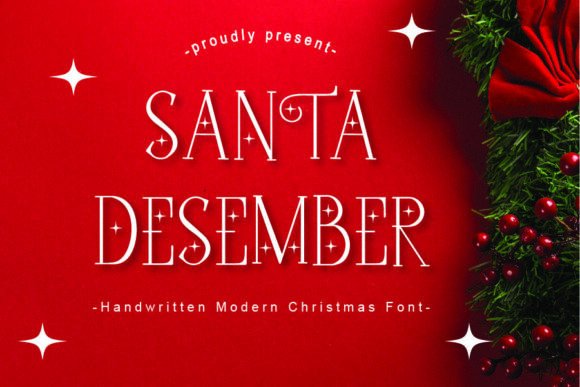
Santa Desember Font: The Ultimate Holiday Cheer for Your Designs
The holiday season is upon us, and with it comes the desire to infuse our designs with a dash of festive fun and playful charm. If you’re looking for the perfect typography to capture the essence of Christmas, look no further than the Santa Desember font. This whimsical typeface is the epitome of cheerful holiday joy and spirited youthfulness, guaranteed to bring your designs to life with its quirky and entertaining style.
The Magic of Santa Desember Font
Santa Desember font is more than just a typography; it’s an experience. Its unique and playful design instantly evokes the feeling of holiday merriment, making it the perfect addition to any Christmas-oriented project. Whether you’re designing a festive poster, a holiday card, or a Christmas-themed website, this font is sure to add a noticeable spark of fun and cheer.
What Makes Santa Desember Font So Special?
So, what sets Santa Desember font apart from other typographies? Here are a few reasons why this font is the ultimate holiday cheer for your designs:
- Whimsical Design: Santa Desember font boasts a unique and whimsical design that instantly captures the essence of the holiday season.
- Playful Charm: This font exudes playful charm, making it perfect for designs that require a dash of fun and humor.
- Cheerful Holiday Joy: Santa Desember font embodies cheerful holiday joy, guaranteed to put a smile on your audience’s faces.
- Spirited Youthfulness: This font’s spirited youthfulness makes it perfect for designs that require a fresh and energetic feel.
- Pair it with Other Fonts: Pair Santa Desember font with other complementary fonts to create a unique and visually appealing typography combination.
- Experiment with Colors: Experiment with different colors to find the perfect combination that matches your brand’s style and personality.
- Use it for Headings and Titles: Use Santa Desember font for headings and titles to add a touch of festive fun and playfulness to your designs.
Benefits of Using Santa Desember Font
Using Santa Desember font in your designs comes with a range of benefits, including:
- Increased Engagement: The playful and whimsical design of Santa Desember font is sure to capture your audience’s attention and increase engagement.
- Improved Brand Personality: This font’s unique and cheerful design can help to improve your brand’s personality and make it more relatable.
- Festive and Fun: Santa Desember font adds a touch of festive fun to your designs, making it perfect for holiday-themed projects.
In conclusion, Santa Desember font is the ultimate holiday cheer for your designs. Its whimsical design, playful charm, and cheerful holiday joy make it the perfect addition to any Christmas-oriented project. With its ease of use and range of benefits, this font is sure to bring your designs to life and make every word an embodiment of holiday merriment.